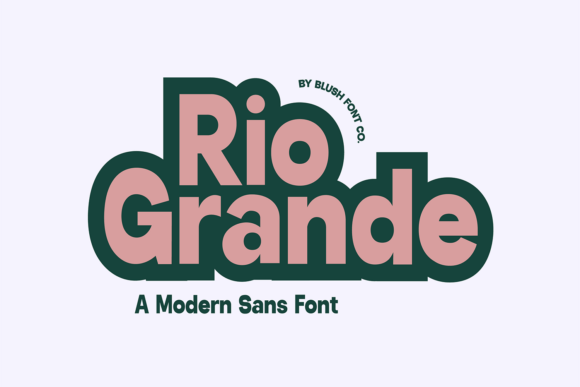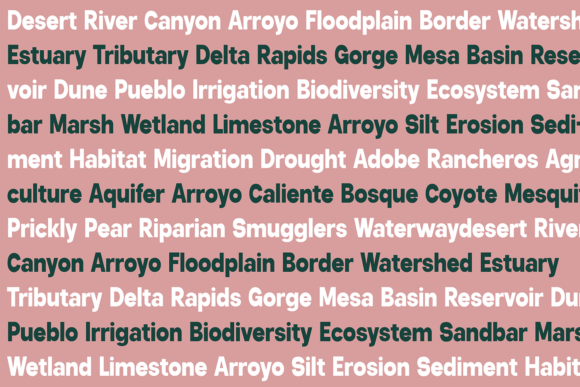
Rio Grande Font: Bold Retro Sans Serif for Social Media Design
About the Rio Grande Font
Step up your design game with Rio Grande Font, a font that exudes confidence and style. “Rio Grande” a bold retro sans display font.
This font is a bold display font that is perfect for social media or crafty projects. Use if for branding, crafts for decor, invitations, and more! All caps glyphs, numbers, and punctuation marks, and intl characters.
Rio Grande’s bold, retro style makes it ideal for headlines, posters, and short impactful statements in branding materials. Its strong visual presence works well on packaging, especially for products with a vintage or Americana feel. However, its condensed letterforms and heavy weight are less suitable for body text or UI elements requiring high readability. Avoid using it for long paragraphs or small sizes.
For optimal visual harmony, pair Rio Grande with a clean sans-serif like Montserrat for body copy or a classic serif such as Playfair Display for a touch of elegance. A more playful contrast could be achieved using a script font like Great Vibes for secondary text elements, while a geometric sans-serif like Futura would create a modern, balanced feel.
The overall personality of Rio Grande is bold and confident, with a retro vibe that suggests energy and a touch of nostalgia. It’s a strong choice for brands seeking to convey a sense of heritage or vintage style with a contemporary edge.
Rio Grande Font Usage Examples
Rio Grande Font Example